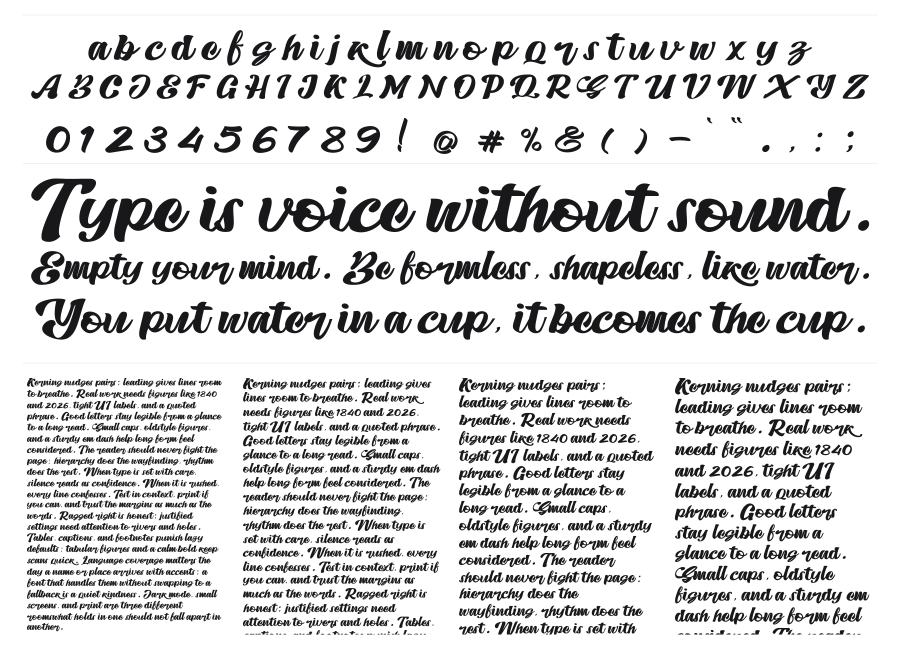
Skatter
by Daddi Daryawan
Skatter is a thick, expressive brush face by Daddi Daryawan with bold strokes that feel fast and loose, like they were laid down in one confident pass. The letterforms carry a raw, dynamic energy that works naturally for posters, headlines, and event branding where you want something that feels physical and unrestrained.